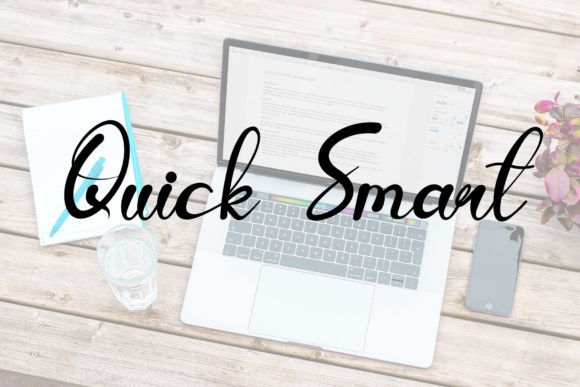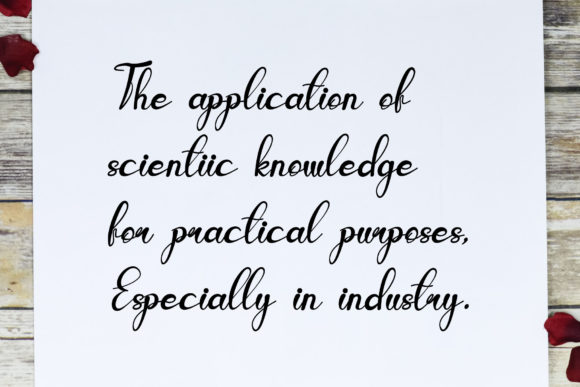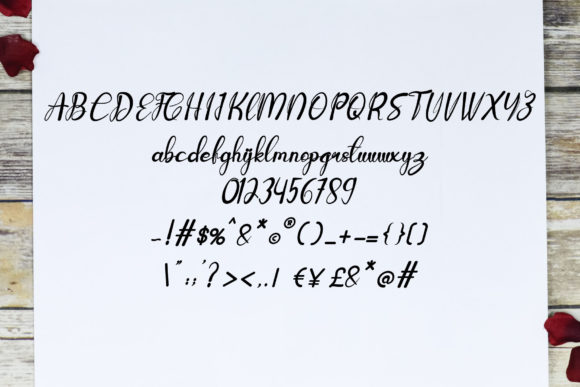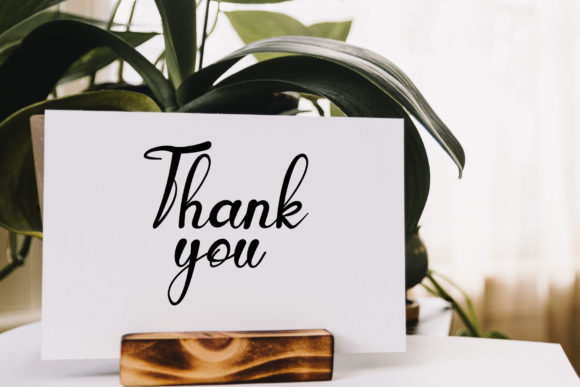
Introducing Business Font: The Elegant and Dainty Handwritten Font for Crafty Ideas
Are you a designer or crafter looking for a unique and elegant font to elevate your creative projects? Look no further than Business Font, a beautiful handwritten font that features sweet and delicate swashes. With its original look and versatility, Business Font is perfect for a wide range of crafty ideas, from letterheads and titles to stationery and more.
What is Business Font?
Business Font is a carefully crafted handwritten font that exudes elegance and sophistication. Its delicate swashes and sweet curves make it perfect for designs that require a touch of refinement and poise. Whether you’re creating a logo, letterhead, or social media graphic, Business Font is sure to make a lasting impression.
Key Features of Business Font
• Elegant and Dainty: Business Font features a delicate and refined design that is perfect for creating sophisticated and elegant designs.
• Sweet Swashes: The font’s sweet swashes add a touch of whimsy and playfulness to any design, making it perfect for crafty and creative projects.
• Handwritten: Business Font is a handwritten font that has been carefully crafted to mimic the look and feel of handwriting, giving it a personal and unique touch.
• Versatile: Business Font is versatile and can be used for a wide range of design projects, from letterheads and titles to stationery and more.
Uses for Business Font
Business Font is perfect for a wide range of design projects, including:
• Letterheads: Create professional and elegant letterheads that make a lasting impression on clients and customers.
• Titles and Headings: Use Business Font to create eye-catching titles and headings that add a touch of sophistication to any design.
• Stationery: Create beautiful and elegant stationery that is perfect for personal or business use.
• Logos: Use Business Font to create unique and memorable logos that reflect your brand’s personality and style.
• Social Media Graphics: Create eye-catching social media graphics that showcase your brand’s elegance and sophistication.
Why Choose Business Font?
There are many fonts to choose from, but Business Font stands out for its unique and elegant design. Here are just a few reasons why you should choose Business Font for your next design project:
• Unique: Business Font is a one-of-a-kind font that will set your designs apart from the competition.
• Elegant: The font’s elegant design makes it perfect for creating sophisticated and refined designs.
• Versatile: Business Font can be used for a wide range of design projects, making it a great addition to any designer’s toolkit.
Tips for Using Business Font
Here are a few tips for using Business Font in your design projects:
• Use it Sparingly: Business Font is a elegant and refined font, so use it sparingly to avoid overwhelming your design.
• Pair it with Other Fonts: Business Font pairs well with other fonts, so don’t be afraid to experiment with different font combinations.
• Adjust the Size: Adjust the size of Business Font to create visual interest and hierarchy in your design.
• Experiment with Colors: Business Font looks great in a variety of colors, so experiment with different colors to find the perfect look for your design.
Font Name Business Font
Author Designvector10
Business Font is a beautiful and elegant handwritten font that is perfect for designers and crafters looking to add a touch of sophistication to their designs. With its delicate swashes and sweet curves, Business Font is sure to make a lasting impression. Whether you’re creating a logo, letterhead, or social media graphic, Business Font is a great choice. So why wait? Download Business Font today and start creating elegant and refined designs that showcase your creativity and style.